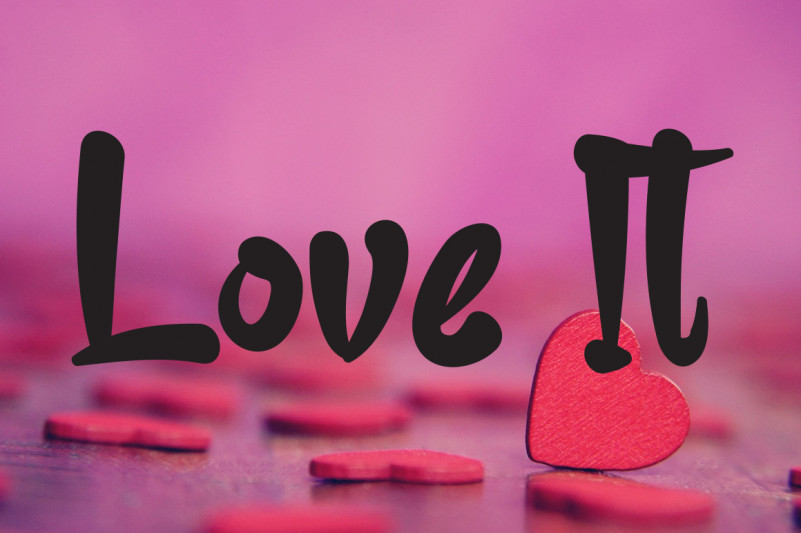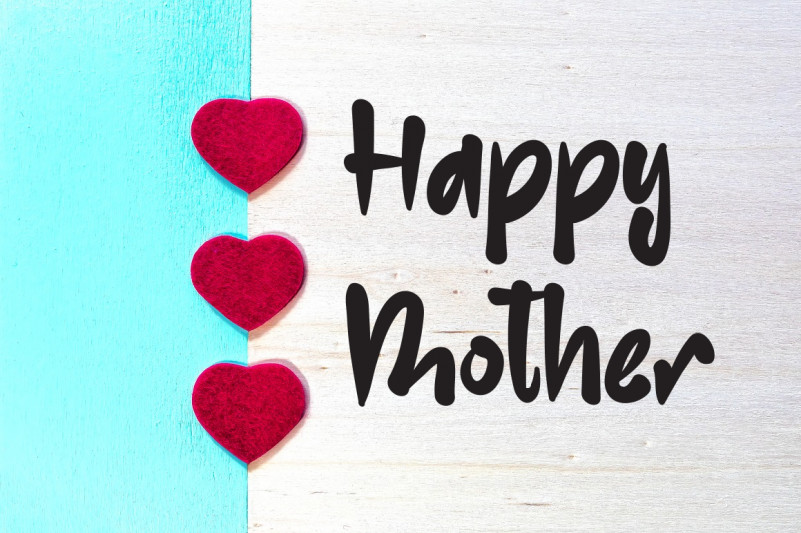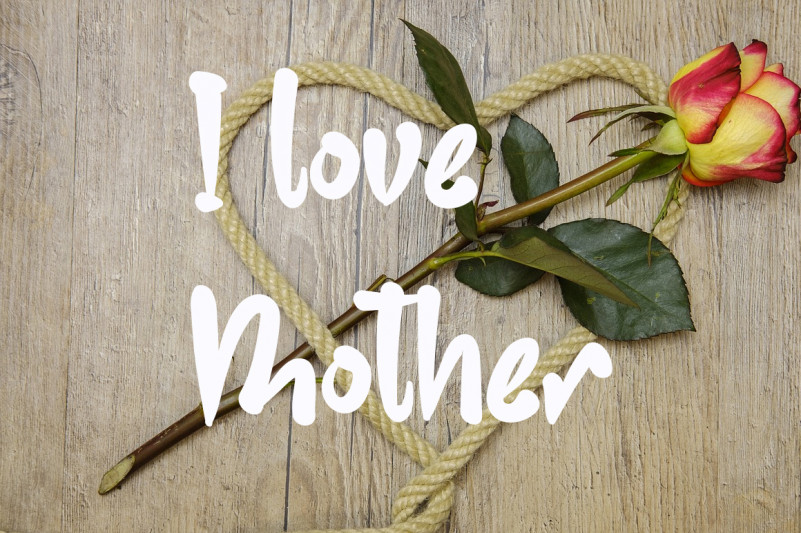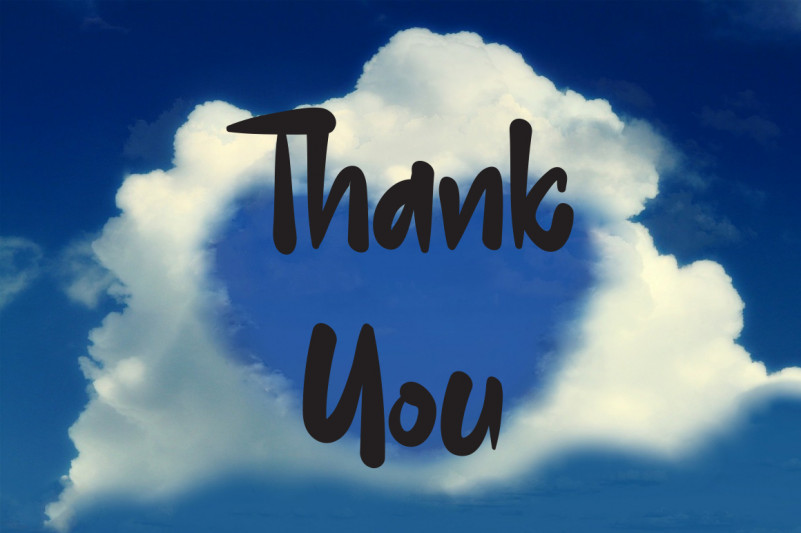
Mother’s Day Display Font
This is a bold and fun handwritten font. This font is the ideal font for adding an adventurous and authentic feel to your next design idea!